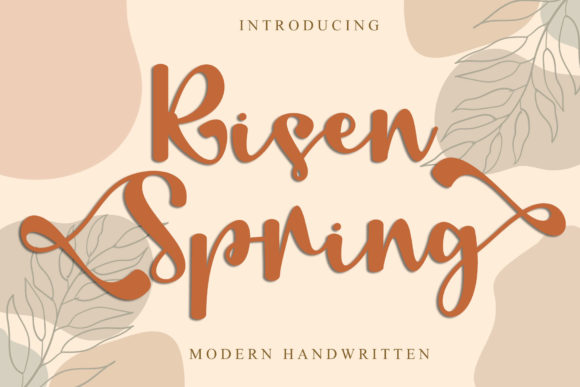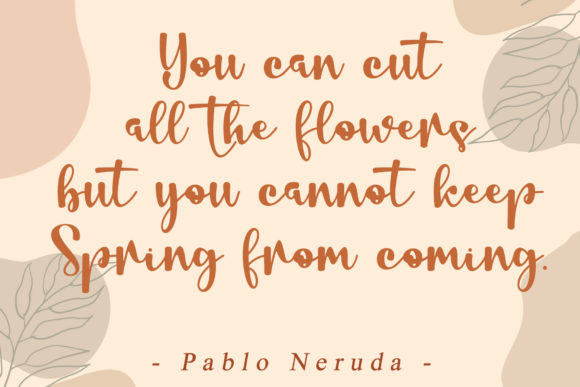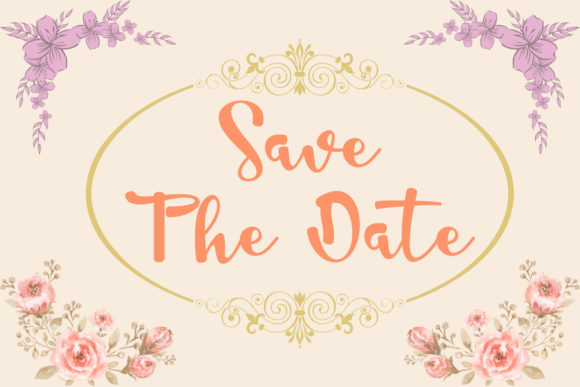
About Risen Spring Font
Risen Spring is a modern handwritten font, made with a spring theme. It is very suitable for greeting cards, T-shirt designs, invitations, wedding cards, and more.